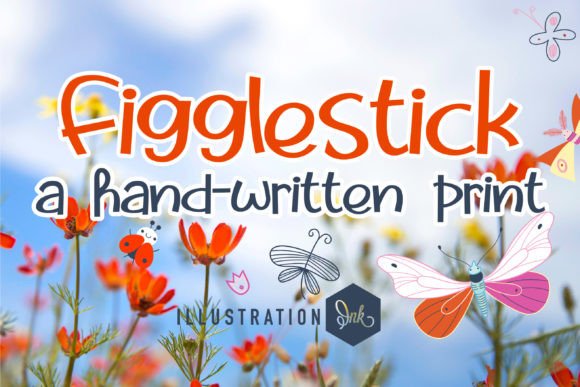
Introducing Figglestick Font: The Hand-Crafted Sans Serif For Dazzling Designs!
In a world clamoring for distinctiveness, Figglestick Font emerges as the ultimate game-changer. This meticulously-crafted hand-written sans serif typeface exudes youthful exuberance and whimsical flair, destined to transform your creative endeavors into eye-catching masterpieces.
With Figglestick Font as your artistic weapon, you unlock infinite possibilities for creative expression. Its strokes dance across the page with a joyous rhythm, captivating readers and onlookers alike. Its playful curves and vivacious energy bring a breath of fresh air to any project, whether it's a heartfelt greeting card, a captivating headline, or an unforgettable logo.
As a designer, you crave fonts that transcend the ordinary, fonts that ignite your imagination and propel your creations to new heights. Figglestick Font fits the bill, offering a kaleidoscope of applications that will leave you spellbound. From the whimsical charm of invitations to the infectious energy of branding materials, Figglestick Font seamlessly adapts, enhancing your work with its inherent charisma.
Beyond its versatility, Figglestick Font boasts impeccable craftsmanship, meticulously designed to ensure flawless results. Each letterform is a work of art, rendered with precision and passion. The result is a symphony of captivating glyphs, ready to elevate your designs to dizzying heights.
So, unleash your creativity and embark on a typographic odyssey with Figglestick Font. Let its youthful spirit invigorate your projects, let its whimsical nature inspire your designs. Step into the realm of extraordinary typography, where your imagination reigns supreme, and Figglestick Font becomes your trusted ally. Welcome to the world of enchantment, where fonts take on a life of their own, captivating hearts and transforming dreams into tangible realities.